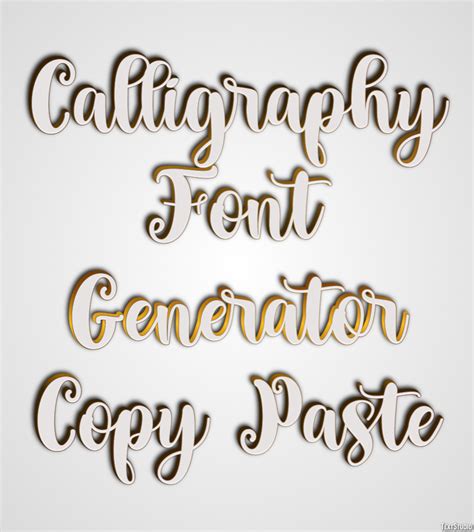
Modern Calligraphy Text Generator copy and paste Schrift Generator
Calligraphy Font Generator Copy Paste. Calligraphy is used to signify something very classy and used as a tool to notify people. Paste it as plain text.
Paste it as plain text. Web font generator will convert your text letters using calligraphy font. Calligraphy is used to signify something very classy and used as a tool to notify people. Web learn about the history and styles of calligraphy fonts, and how to create text graphics and logos with them online.
Web learn about the history and styles of calligraphy fonts, and how to create text graphics and logos with them online. Web font generator will convert your text letters using calligraphy font. Paste it as plain text. Calligraphy is used to signify something very classy and used as a tool to notify people. Web learn about the history and styles of calligraphy fonts, and how to create text graphics and logos with them online.